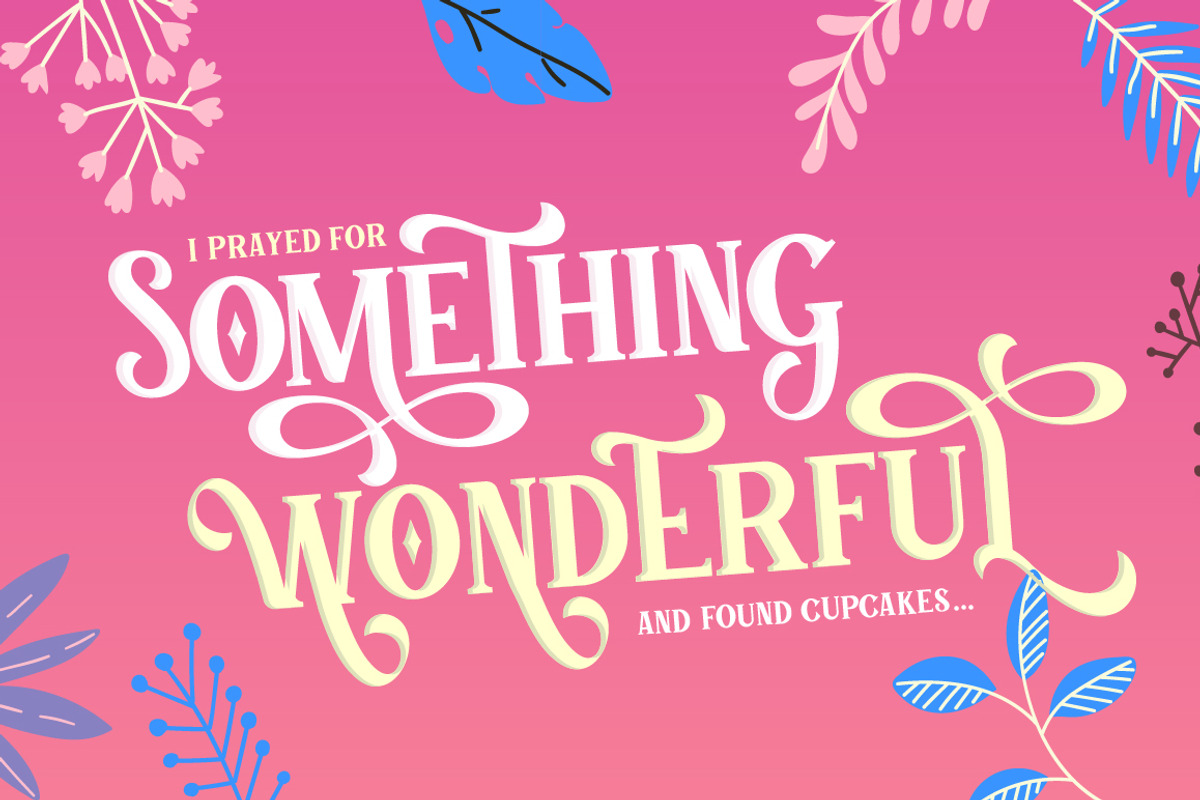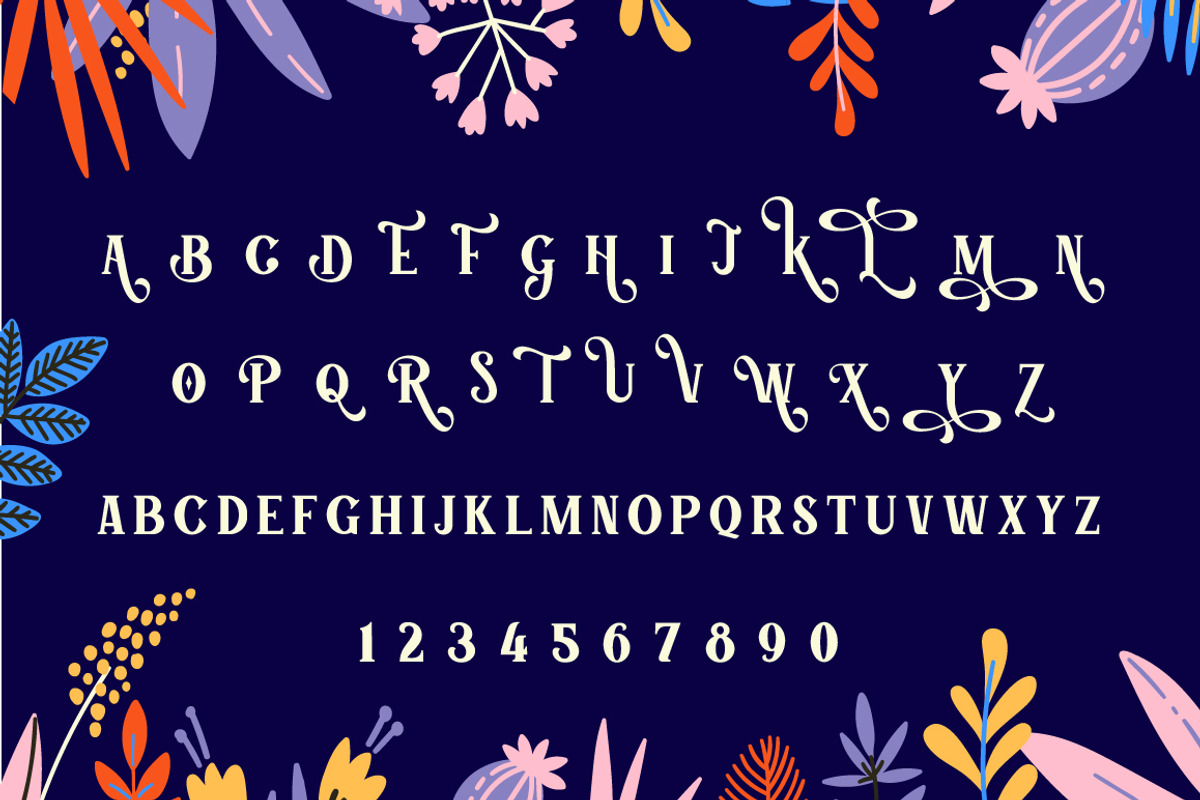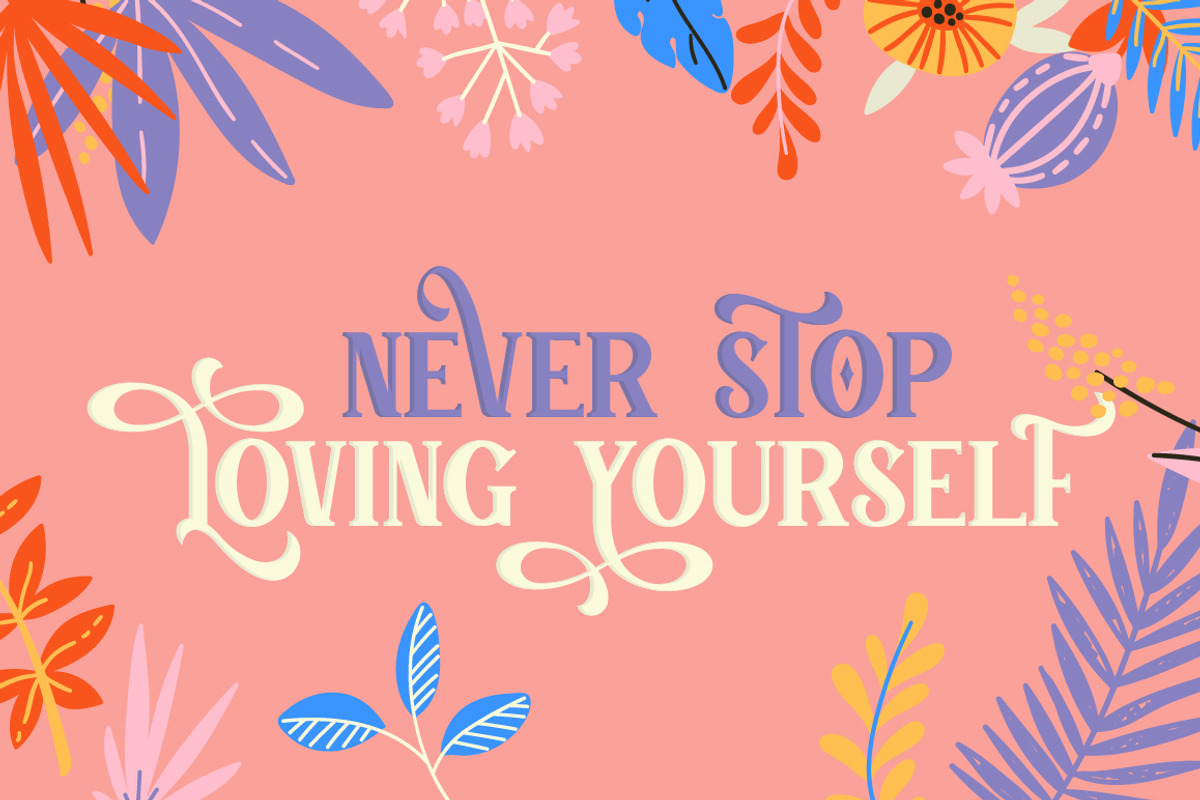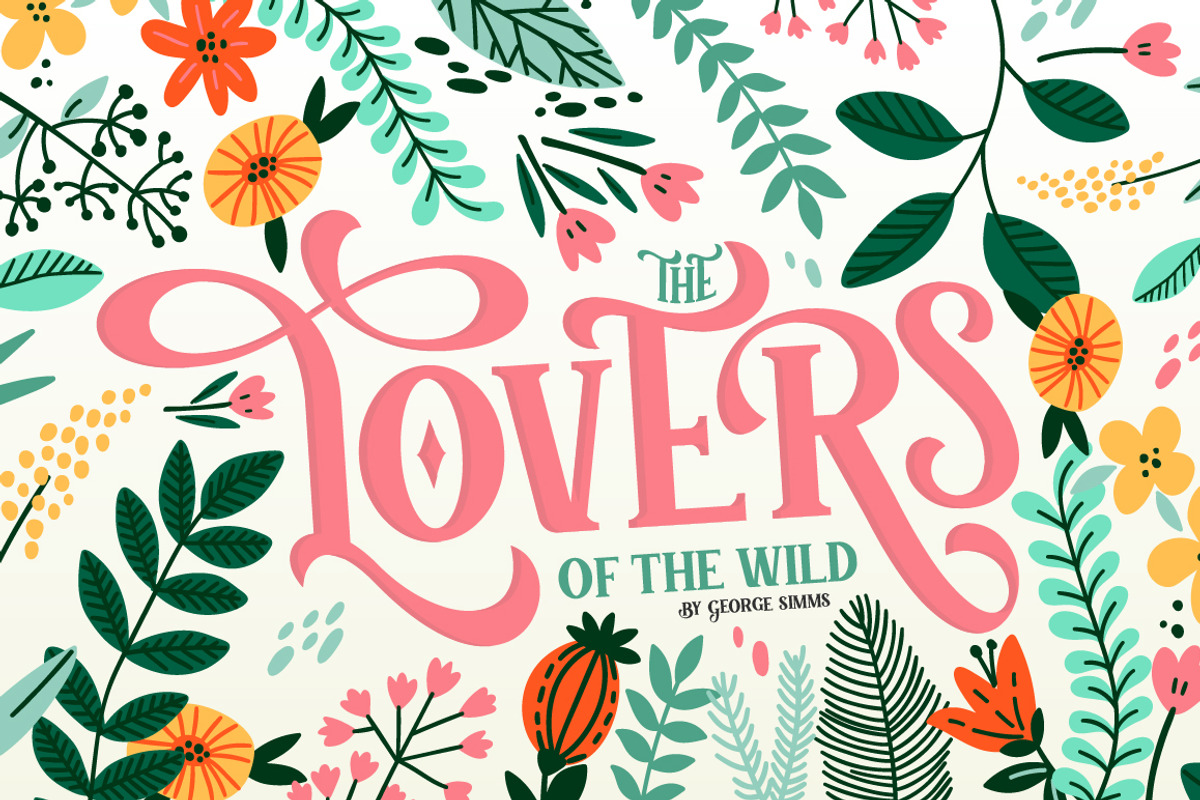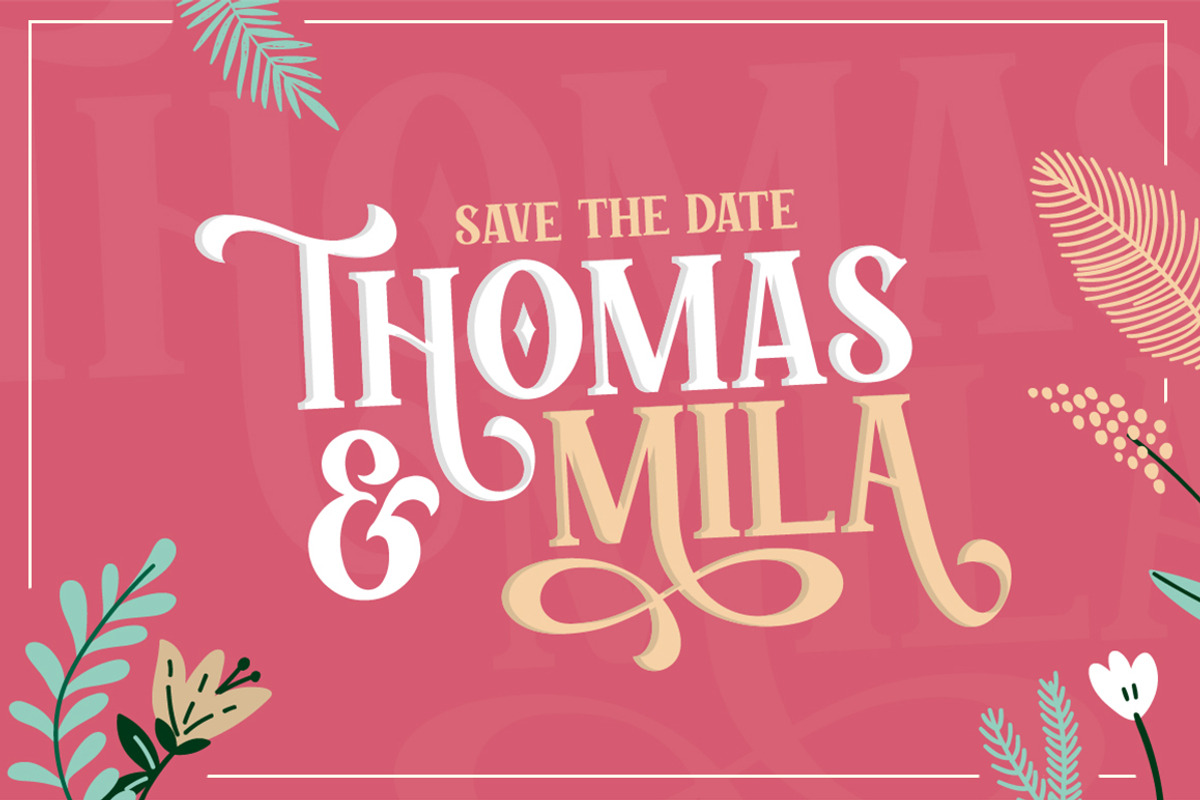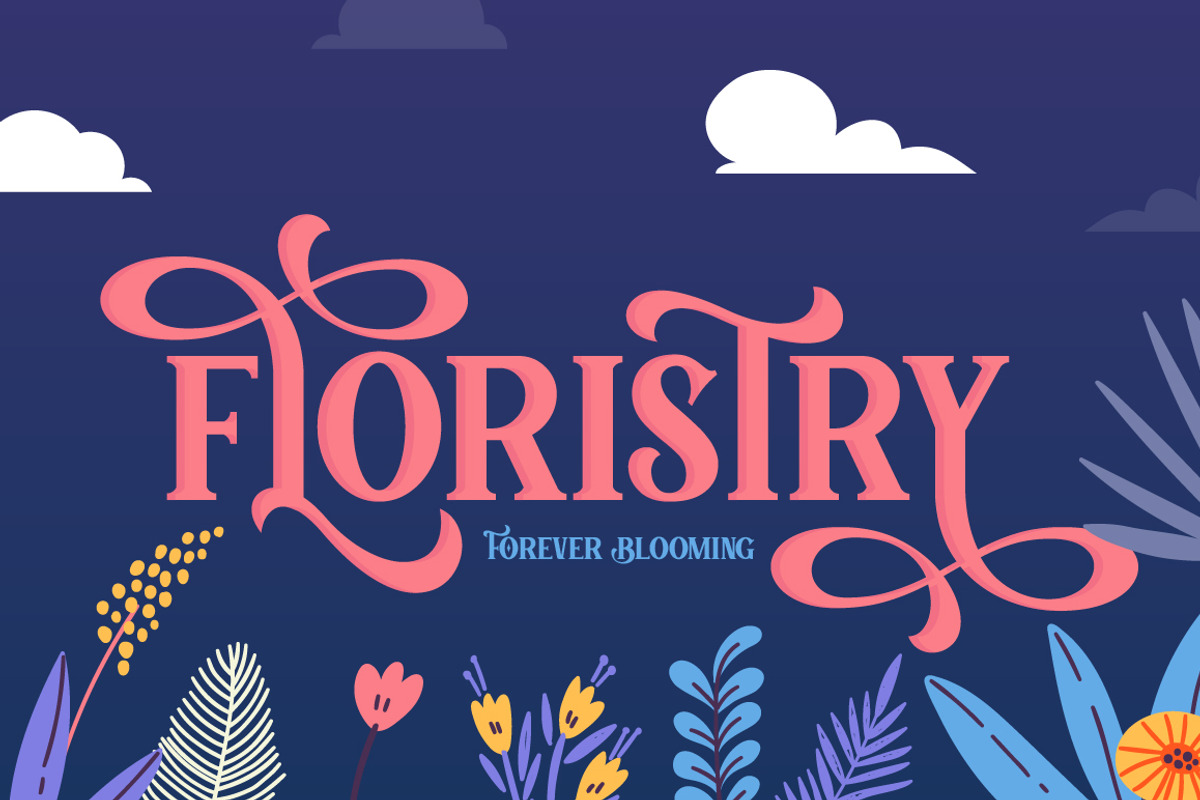
Tumbled Serif Font
Tumbled Serif is a fancy new font that evokes feelings of fairytale magic and mysterious lands. A swirly paradise with a no nonsense serif base to ensure the font is both pretty and legible at the same time. Enjoy and see where this magic takes your designs. All characters are 100% accessible. Try it via the font previewer area below.
Why Tumbled Serif Font is worth a look
Tumbled Serif Font by Salt & Pepper Designs fits naturally into Branding, posters, packaging, typography.